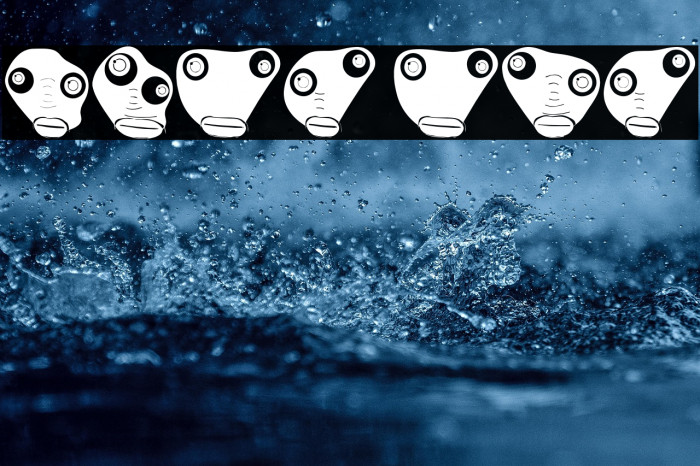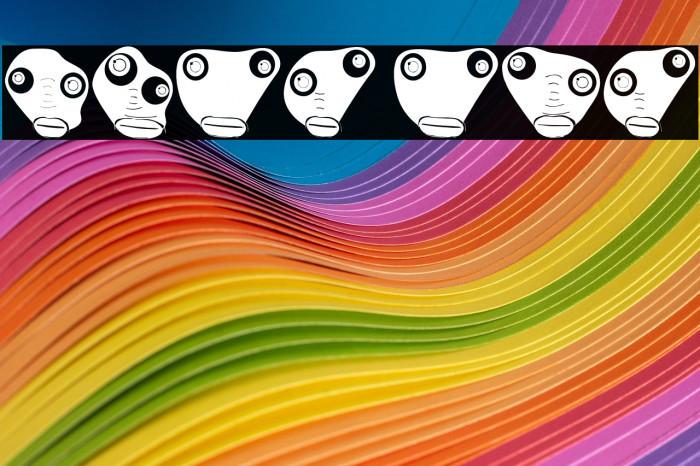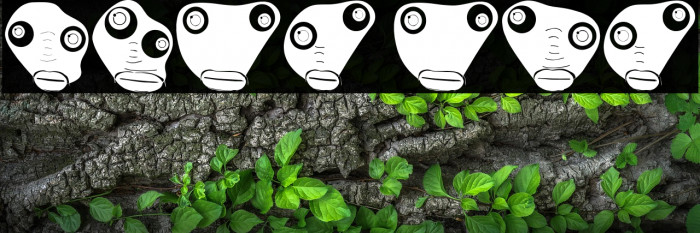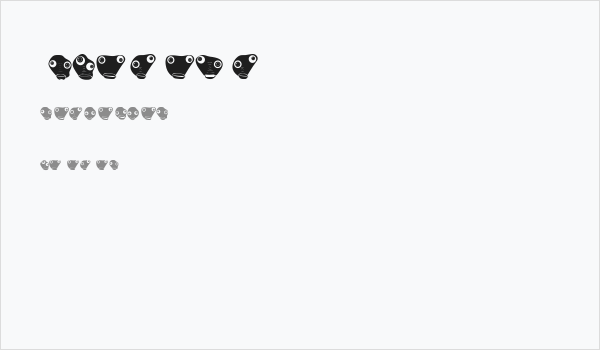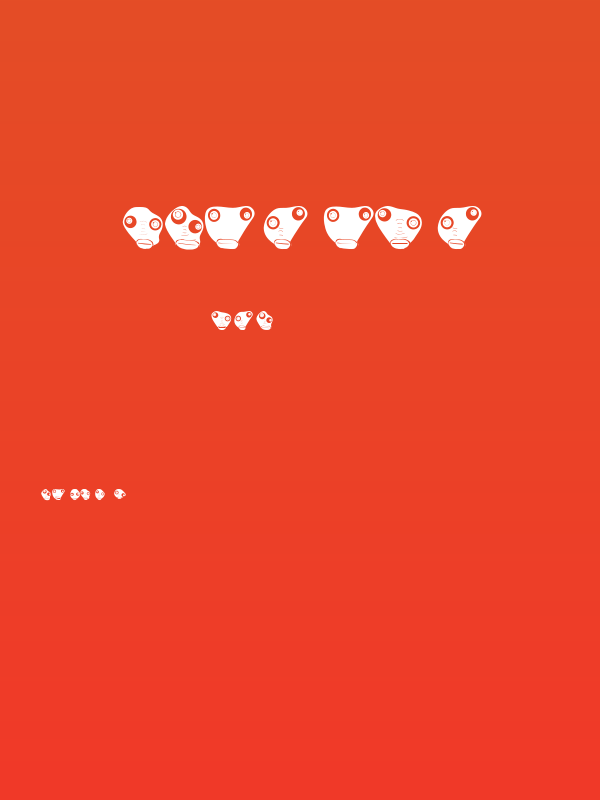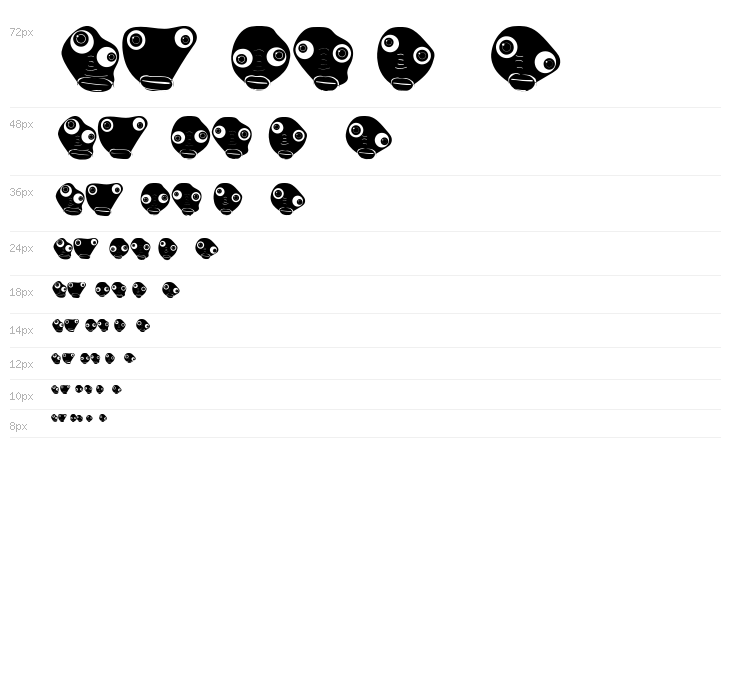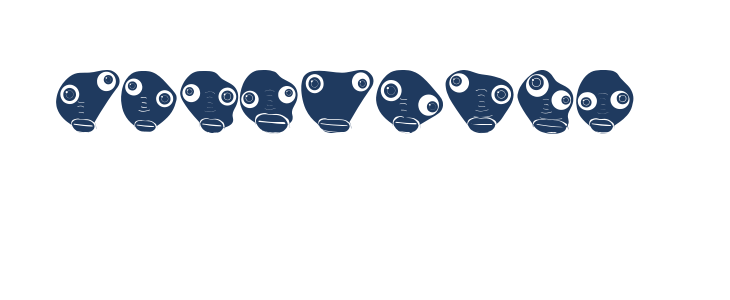
Kucheza Regular Font
Kucheza Regular Description
This font features a playful and whimsical design, characterized by its unique and quirky letterforms that resemble cartoonish faces. Each character is crafted with exaggerated features, such as large eyes and expressive mouths, giving the font a lively and animated appearance. The bold and rounded shapes contribute to its friendly and approachable style, making it ideal for projects that require a touch of humor and creativity. The font's distinct personality makes it stand out, and it is well-suited for use in children's books, playful branding, and creative advertising campaigns.
| Overall Style | Playful, Whimsical, Creative |
| Use Case | Logos, Headlines, Creative projects |
| Proposed Projects | Children's books, playful branding, creative advertising campaigns. |